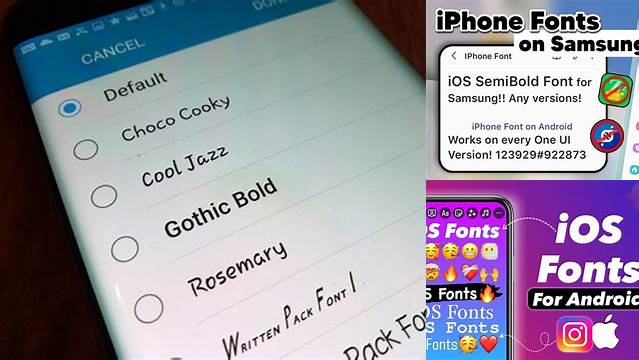
IOS Fonts For Samsung: Transform Your Android
Are you an Android enthusiast, or perhaps you're just looking to spice things up on your Samsung device? Well, guess what, guys? You can actually bring a touch of the iOS aesthetic to your Samsung phone by changing the fonts! This is a super cool way to personalize your device and make it feel uniquely yours. The whole process is pretty straightforward, and the result is a fresh new look that can make your phone feel brand new. Ready to dive in? Let's get started on how to change fonts and make your Samsung device stand out with that sleek iOS flair. This guide is designed to walk you through everything you need to know, from downloading the fonts to applying them. It is a simple step, but the impact is enormous, especially if you love the clean, elegant look of iOS.
Why Change Fonts on Your Samsung?
Changing fonts on your Samsung device is more than just a cosmetic change; it's a chance to completely revamp the look and feel of your phone's interface. For many users, the default font can become a bit stale after a while. This is where the magic happens! Switching to an iOS font, known for its clarity and modern aesthetic, can make your daily interactions with your phone much more enjoyable. Think about it: every text message, every app name, every menu item – all of these will be refreshed with a new style.
It's also a fantastic way to express your personal style. Do you admire the simplicity and elegance of Apple's typography? Now you can bring that very same style to your Android device. This personalization extends beyond just the fonts. You can also combine it with different themes, icon packs, and wallpapers to create a truly unique and personalized experience. This customization lets you create a phone that reflects your personality and preferences. The right font can make reading easier on the eyes, and the new look might even boost your overall satisfaction with your device. What's even better? It's a reversible process, so if you get tired of the iOS fonts, you can always switch back to the default or try something completely different! Changing fonts is a simple, yet effective way to breathe new life into your phone and make it feel like an extension of your own personal style.
Method 3: Using Custom ROMs (Advanced Users)
This method is more for advanced users who are comfortable with installing and managing custom ROMs on their devices. Custom ROMs offer extensive customization options, including the ability to change fonts system-wide. Here's a general outline:
- Unlock Your Bootloader: This process varies by device but is essential for installing custom ROMs.
- Install a Custom Recovery: This allows you to flash custom ROMs.
- Flash a Custom ROM: Choose a ROM that suits your needs. Some popular options include LineageOS or Pixel Experience.
- Customize Your Fonts: Once the ROM is installed, you can usually find font options within the ROM's settings.
Remember, this method can be complex and may void your warranty. Always back up your data before starting. So, think carefully before you start. This will also help you learn how to customize and personalize your phone.
Sometimes, you may run into issues. Don't worry, here are some of the most common problems you might encounter, along with their solutions. If you run into some issues, keep reading to resolve them.
Font Not Applying Properly
If the font doesn't change after installation, here are some things to try:
- Restart your phone: Sometimes, a simple restart is all you need. This can force the system to recognize the new font.
Conclusion: Elevate Your Android with iOS Fonts
So there you have it, guys! Changing the fonts on your Samsung device is a simple, yet highly effective way to personalize your device and inject a little iOS flair. Whether you're drawn to the clean look or want to refresh your phone's look, it is easy to start. Take the time to explore the options, find the fonts that resonate with you, and make your Android device uniquely yours. With the methods and troubleshooting tips provided in this guide, you're well-equipped to transform your device. Enjoy the process of customization, and have fun making your Samsung device truly your own! It's all about making your phone feel like an extension of yourself, and there's no better way to do that than by customizing its look and feel to suit your unique style.